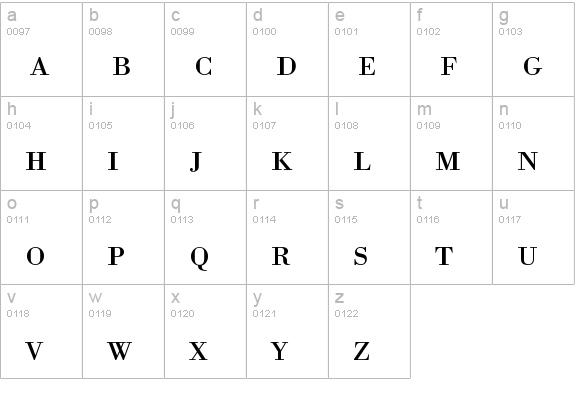
Bodoni BE Light Small Caps & Oldstyle Figures Font Details
Bodoni BE Light Small Caps & Oldstyle Figures is a refined, elegant variant in the Bodoni typeface family \xE2\x80\x94 well suited to elegant body text, refined sub-headings, and luxury branding.
Bodoni BE Light Small Caps & Oldstyle Figures font is a timeless and elegant typeface that exudes sophistication and class. With its delicate serifs and graceful curves, this font is perfect for adding a touch of refinement to any design project. The small caps and oldstyle figures lend a sense of tradition and charm, making it a versatile choice for a range of applications. What sets Bodoni BE Light apart is its unique combination of modern sensibility with a classic aesthetic. The clean lines and balanced proportions make it a versatile choice for both print and digital projects. Whether you're designing a logo, a brochure, or a website, this font will elevate your design to the next level. And the best part? Bodoni BE Light Small Caps & Oldstyle Figures font is available for free download at FontsMarket.com. So you can enjoy the beauty and sophistication of this font without having to spend a penny. Don't miss out on this opportunity to enhance your design projects with this stunning typeface. Download it now and let your creativity shine!